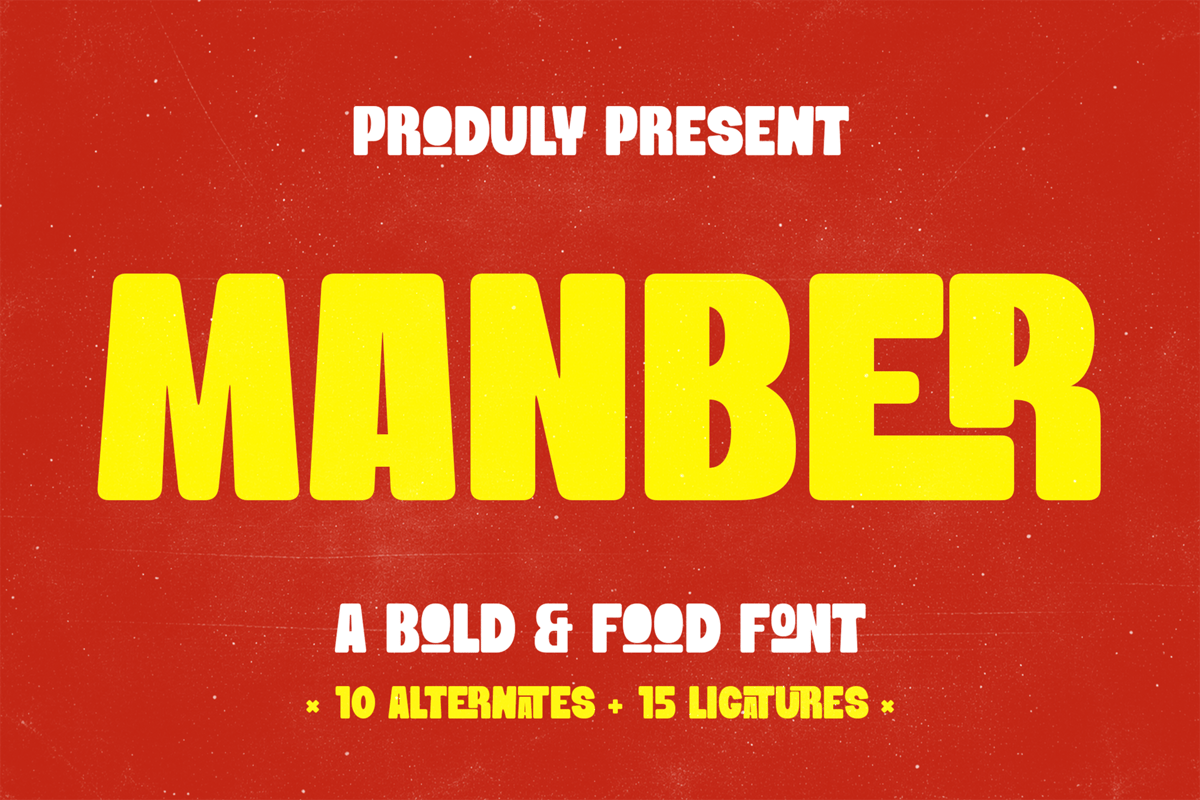
Manber - Food Font
Make a bold statement with Manber, the chunky display font that commands attention and delivers maximum visual impact. With its thick letterforms and retro-inspired style, this playful typeface brings an energetic personality to any creative project. Drawing inspiration from vintage posters and contemporary food packaging, Manber combines nostalgic charm with modern appeal. The font's heavy structure guarantees excellent readability while maintaining a distinctive and memorable character that st...